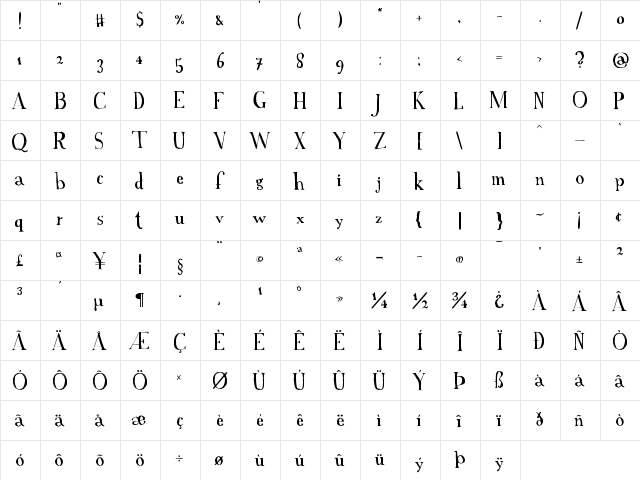
A Font with Serifs Regular
Design Context for A Font with Serifs Typeface
A Font with Serifs brings classic typographic sensibility to the table — its serifs and measured letterforms reflect centuries of print heritage.
Pro Tip: Set A Font with Serifs with slightly loose tracking in headlines to let each letterform's detail read clearly at display sizes.